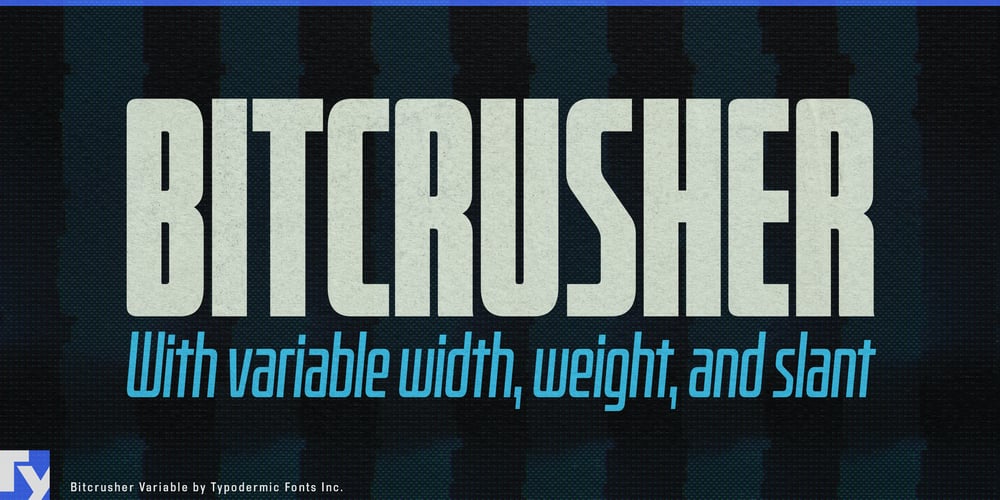
Bitcrusher Variable
Bitcrusher Variable font
Bitcrusher Variable Font Family was designed by Ray Larabie and published by Typodermic. Bitcrusher Variable contains 1 styles and family package options. Enter the realm of limitless typographic possibilities with Bitcrusher Variable—a groundbreaking typeface that redefines the boundaries of design. This futuristic, ultra-compact sans-serif font draws its sleek inspiration from cutting-edge automotive design and next-generation consumer electronics, offering unparalleled text compression for the discerning designer.At the heart of Bitcrusher Variable lies its revolutionary variable font technology, featuring three dynamic axes: weight, width, and slant. This innovative approach empowers designers with unprecedented control, allowing for real-time adjustments and infinite variations within a single, efficient font file. From ultra-condensed to expanded widths, featherlight to bold weights, and upright to slanted styles—Bitcrusher Variable adapts seamlessly to your creative vision.For those who prefer traditional font formats, Bitcrusher is also available as a comprehensive family of individual styles. This non-variable version offers a curated selection of weights and widths, providing the same cutting-edge design in a familiar format. Whether you choose the versatility of Bitcrusher Variable or the precision of its static counterparts, you’ll have access to the same groundbreaking typographic possibilities.What sets Bitcrusher apart—in both its variable and static incarnations—is its remarkable ability to maintain consistent stem, space, and gap widths across all variations. This unique feature allows you to push the boundaries of scaling and tracking, opening up new horizons for creative typography. Need to fit more text into a constrained space? Simply adjust the width axis in the variable version, or select a more condensed style from the static family. Bitcrusher’s compression capabilities are truly extraordinary. Achieve levels of compactness that were previously unthinkable—from standard condensed looks to the abnormally small footprint of “Crammed” or the incredibly high density of “Crushed.” With the variable version, you have infinite variations at your fingertips, while the static family offers carefully crafted preset options for every need.Bitcrusher speaks the language of global design, too. Its extensive character set bridges linguistic divides, supporting most Latin-based European languages, Vietnamese, Greek, and a wide array of Cyrillic-based writing systems. From the rolling hills of the Basque Country to the bustling streets of Hanoi, Bitcrusher ensures your message resonates clearly across cultures and continents.Choose Bitcrusher—in either its dynamic variable format or its precise static styles—and step into the future of typography. It’s time to elevate your designs with a typeface that’s as adaptable and innovative as you are, offering the perfect balance of compression, customization, and clarity.